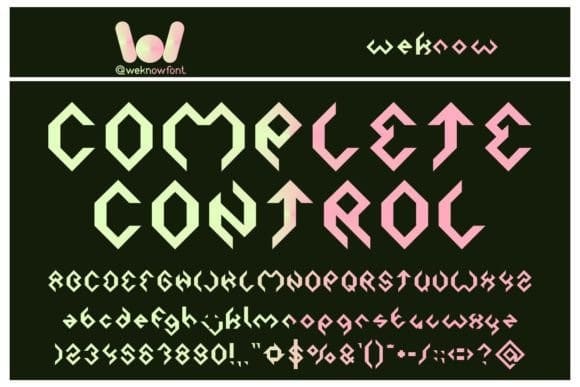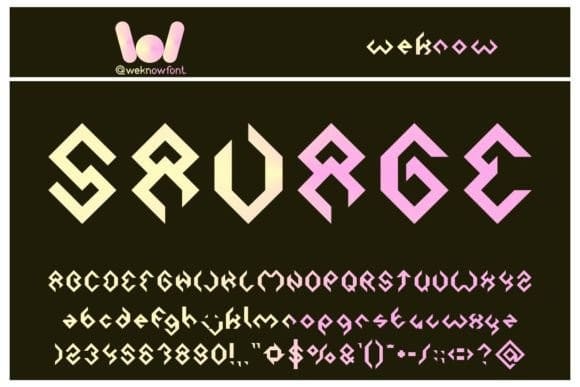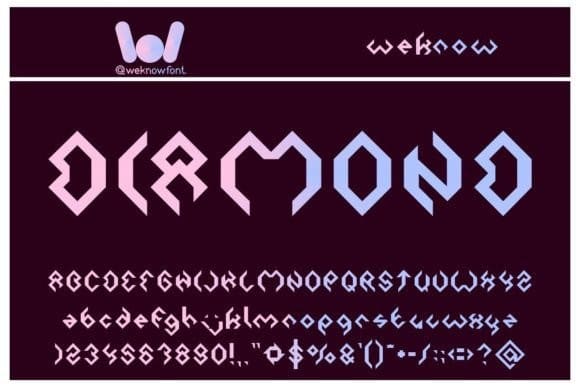
Diamond Display Font
Diamond Display Font is a techno modern gothic various themes font, suit for logo, logotype, headline font, in corporate identity, brand identity, apparel industry, poster, music, movie, game, magazine, book, comic, cartoon, YouTube, Instagram, website, or any of your creative design project